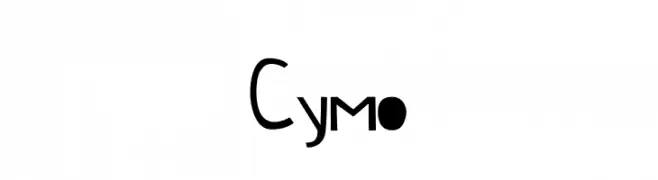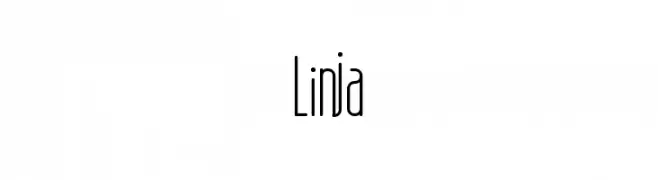
A playful, casual handwritten font with irregular strokes.
A playful, modern font with tall, narrow characters and rounded edges.
A modern, tall, and narrow font with consistent stroke width and geometric precision.
A playful and decorative icon set of alien heads and UFO symbols.
A whimsical, handwritten font with tall, narrow letters and a playful style.
A playful, hand-drawn style with elongated, irregular letterforms.
A bold, angular font with a futuristic and edgy style.
A bold, distressed font with a vintage, industrial feel.
A playful, hand-drawn font with characters enclosed in irregular outlines.
A playful and bold font with geometric and organic elements.